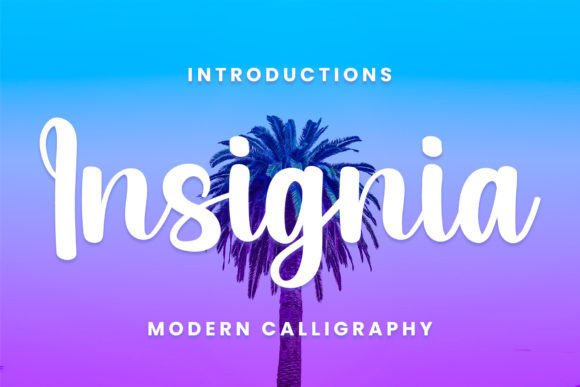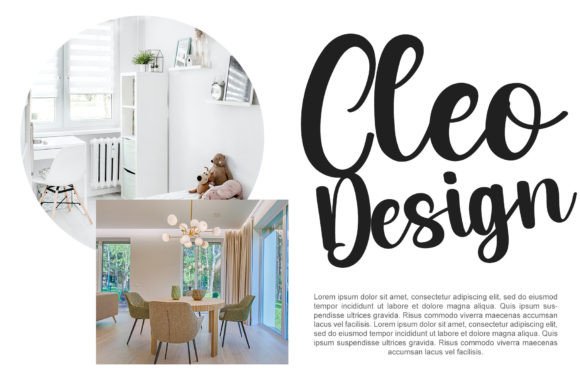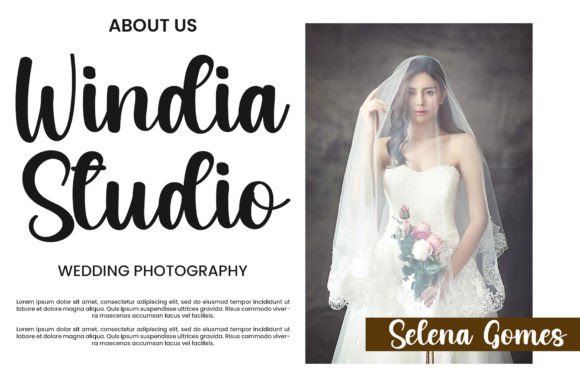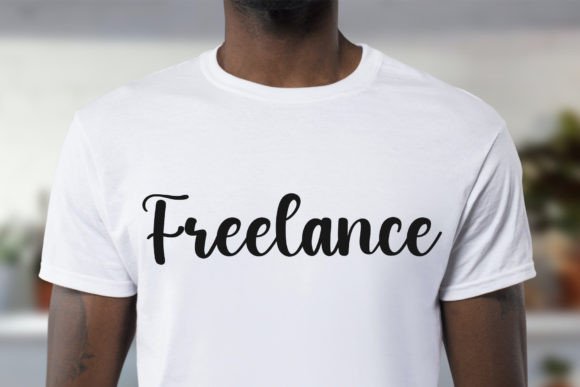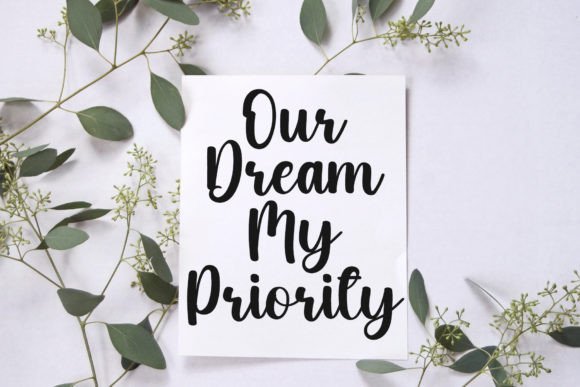
About Insignia Font
Insignia is a playful and stylish font that embodies a youthful spirit, making it a versatile choice suitable for a wide range of design projects. Whether applied to professional-looking designs such as branding, labels, websites, and business cards, or utilized in more casual contexts like packaging, posters, flyers, quotes, social media posts, invitations, and special occasion cards, Insignia adapts seamlessly to various design scenarios.
The playful nature of Insignia brings a sense of energy and creativity to your text. Its stylish design adds a touch of flair, making it equally well-suited for both professional and casual applications. The font’s ability to strike a balance between playfulness and style contributes to its broad appeal.
For professional-looking projects, Insignia lends a contemporary and fashionable vibe to branding designs, labels, and business cards. Its clean and stylish aesthetic adds a touch of sophistication, ensuring that it remains suitable for more formal contexts.
On the flip side, Insignia maintains a casual and approachable feel that makes it perfect for packaging, posters, and social media posts. Its versatility extends to quotes, invitations, and special occasion cards, where the font’s playful spirit can enhance the overall charm of the design.
In summary, Insignia stands out as a font that seamlessly blends a playful and stylish aesthetic. Whether you’re aiming for a professional look or a more relaxed and casual vibe, Insignia proves to be a valuable design tool that brings a youthful and energetic spirit to a variety of creative projects.